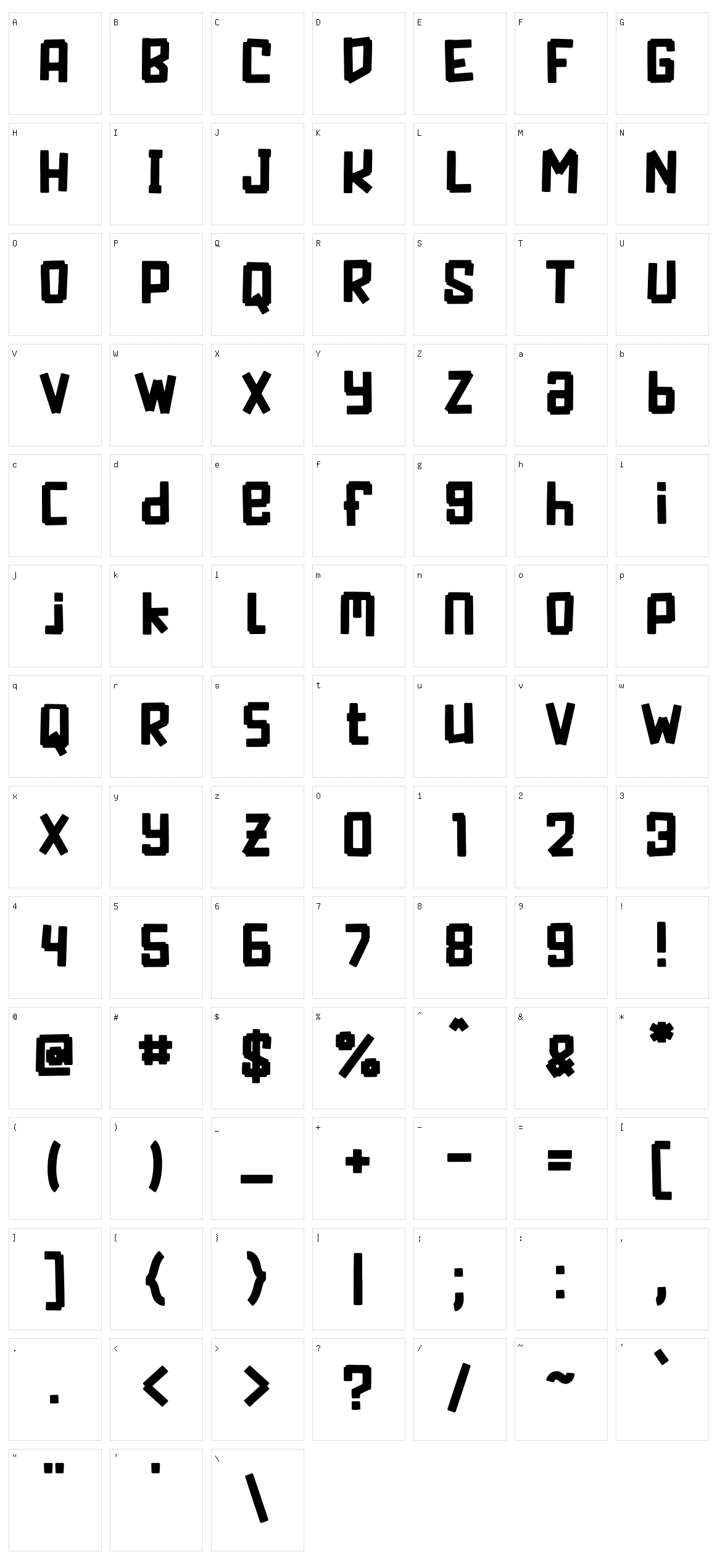
The free font Pixel Craft is carefully designed by Perspectype Studio - Letterena.com, showcasing a thoughtful balance of creativity and usability and falls under the Cartoon font style. When you download the ZIP file, it contains only 34.04 KB of font files, making it lightweight and quick to download. Please review the license details below to understand permitted usage and distribution rights. If license information is not available, we recommend using this font for personal projects only or contacting the author directly for commercial usage permissions.